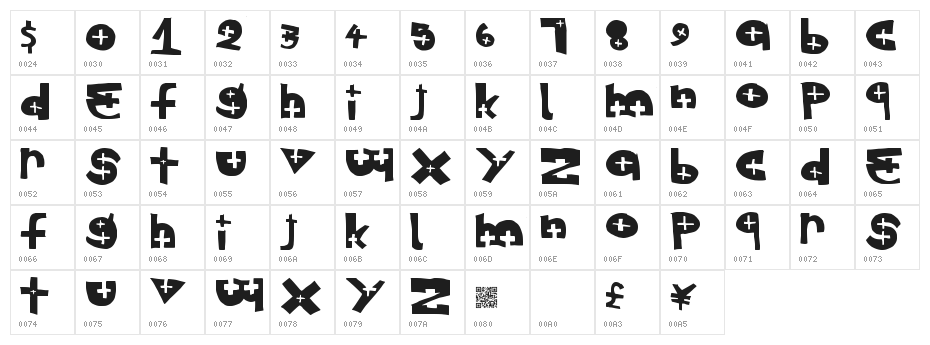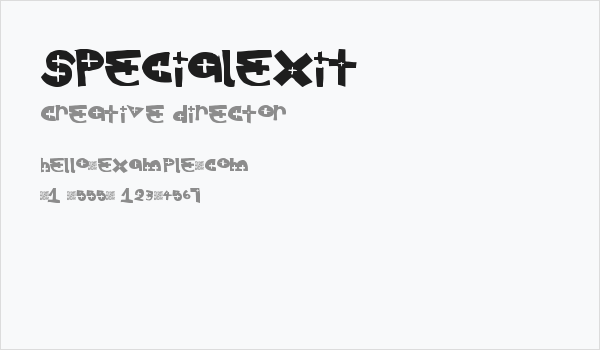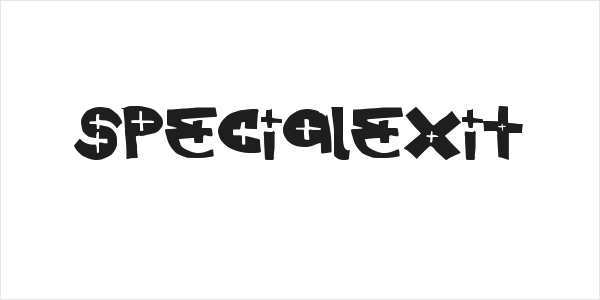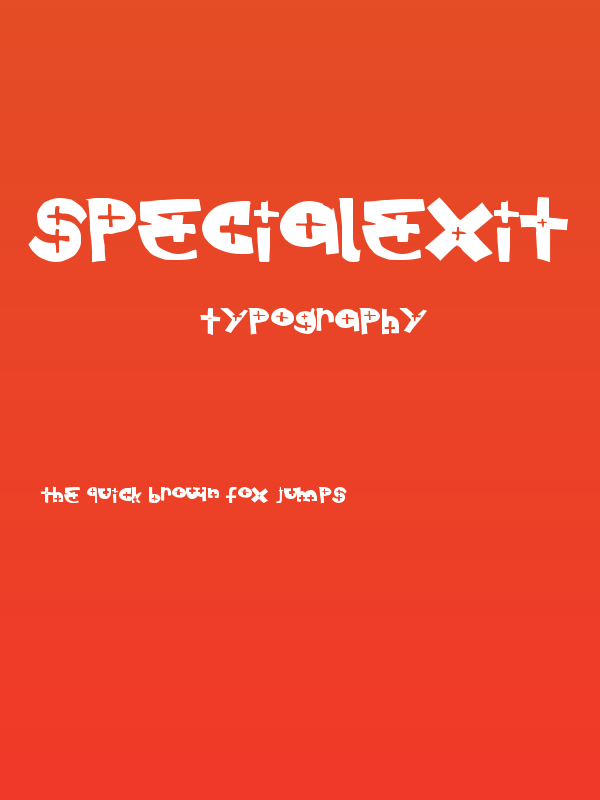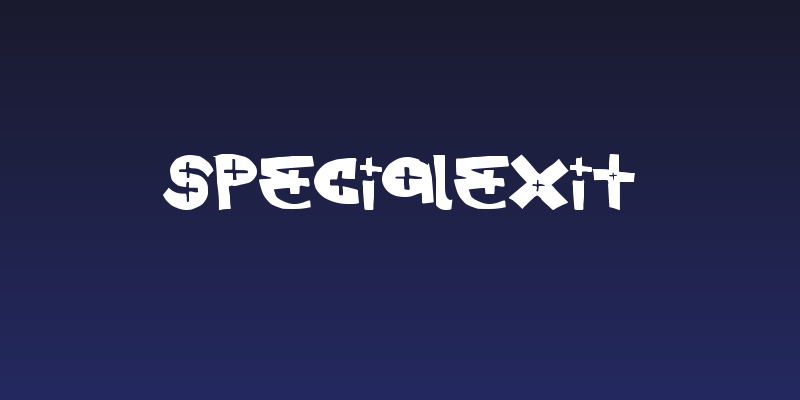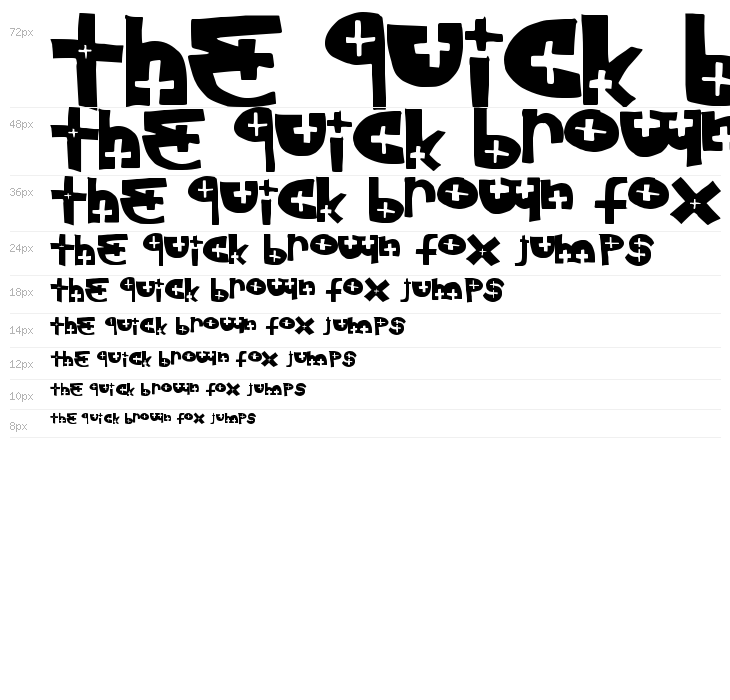
SpecialExit Font
SpecialExit Description
This font features a bold and playful design with a distinctively quirky and artistic flair. The characters are heavily stylized, with exaggerated curves and angles that give them a unique and eye-catching appearance. The uppercase and lowercase letters maintain a consistent style, with some letters featuring unexpected twists and turns. The numbers and special characters follow the same playful theme, making the font suitable for creative and informal projects. The overall look is dynamic and energetic, perfect for grabbing attention.
Proposed ProjectsIdeal for children's books, comic strips, playful branding, and creative posters.